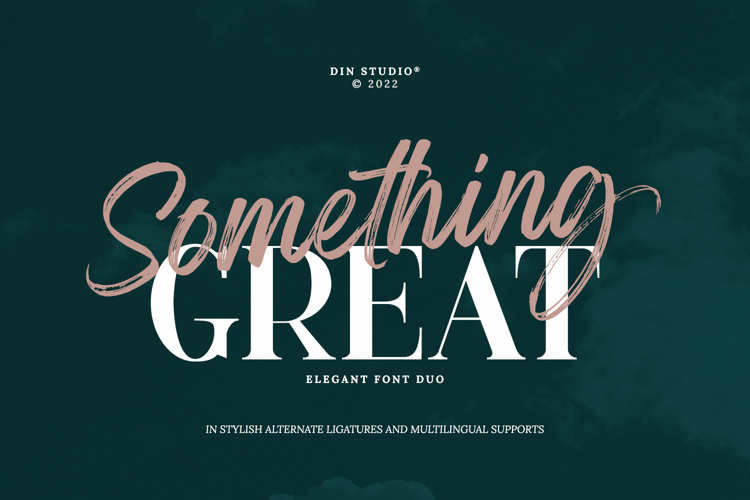
Something Grea Font
Something Great Script Personal Use Only Style
Product Description :
Something Great, a lovely duo font, to let your designs express their most gorgeous impressions ever through the script font and to create modern looks through the serif font. The letters in the script font are created to be similar to handwriting on a brush style, while the ones in serif font are made in capital
letters with hooks on the top or bottom of the letters edges as its character.
Features include:
• Ligatures
• Stylistic Sets
• Multilingual Supports
• Numerals and Punctuations